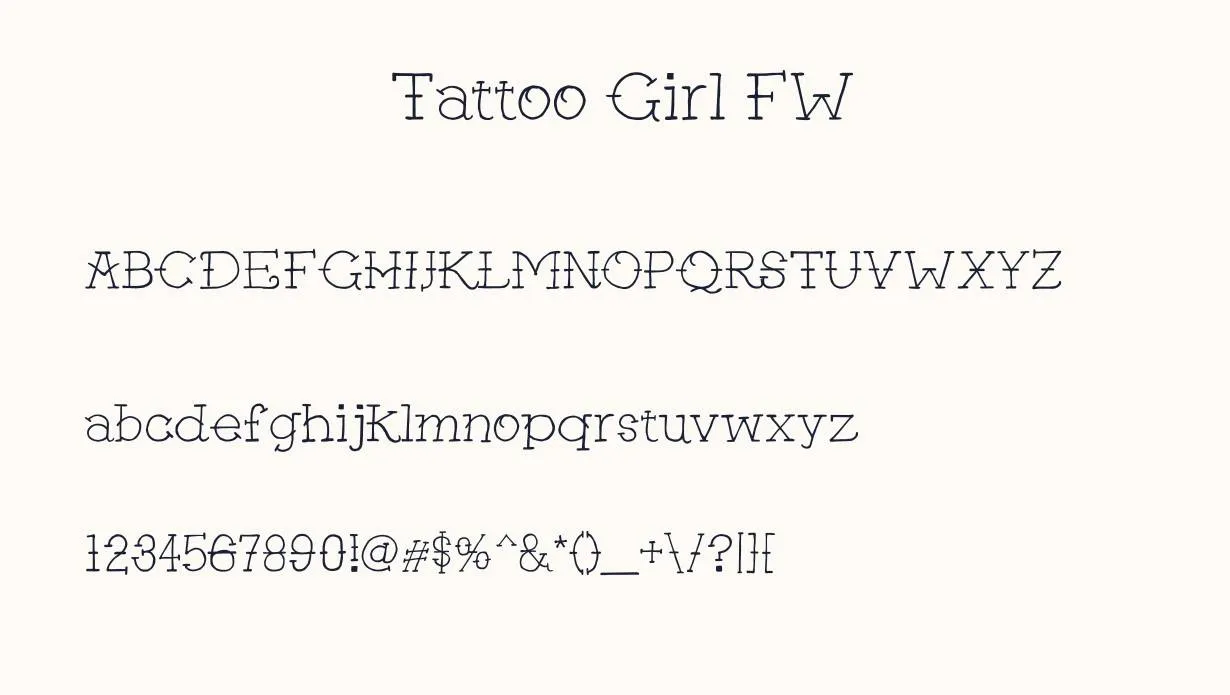
The Tattoo Girl FW Font embodies a bold and edgy attitude, much like someone sporting a cool tattoo. This font is ideal for making a bold statement or exuding a rebellious vibe.
This font is like the rebel in the group, standing out and not afraid to be different. When you want your words to have a bit of a wild side, Tattoo Girl FW is the font to choose.
| Name | Tattoo Girl FW Font |
| Designer | Brain Eaters |